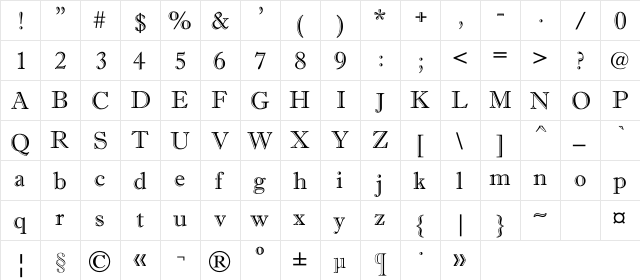
a_AntiqueGr Regular Font Preview
a_AntiqueGr Regular
Design Context for a_AntiqueGr Typeface
a_AntiqueGr has the warm character of retro typography — evoking diners, record sleeves, and the golden age of print advertising.
Ideal for diner signage, record shop branding, 70s/80s-themed projects, and heritage product labels.
Font Pairing: Combine a_AntiqueGr with a simple slab or neutral sans — period-accurate companions reinforce the vintage feel without competing for attention.
Pro Tip: Lean into a_AntiqueGr's period character by pairing it with aged paper textures, muted colour palettes, and vintage illustration styles.